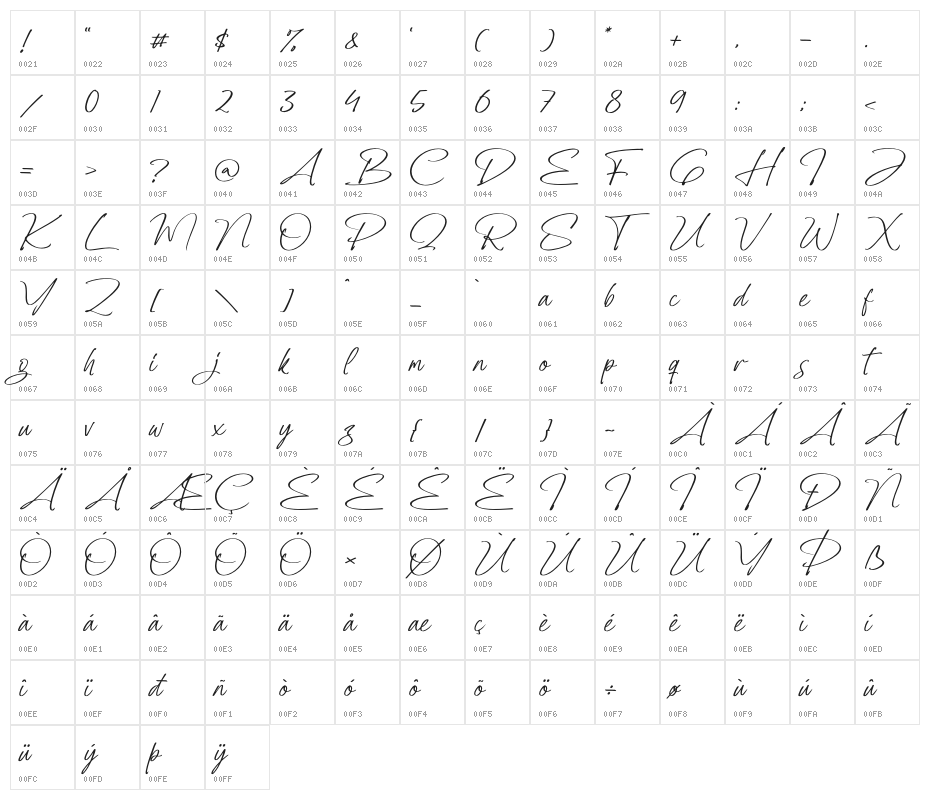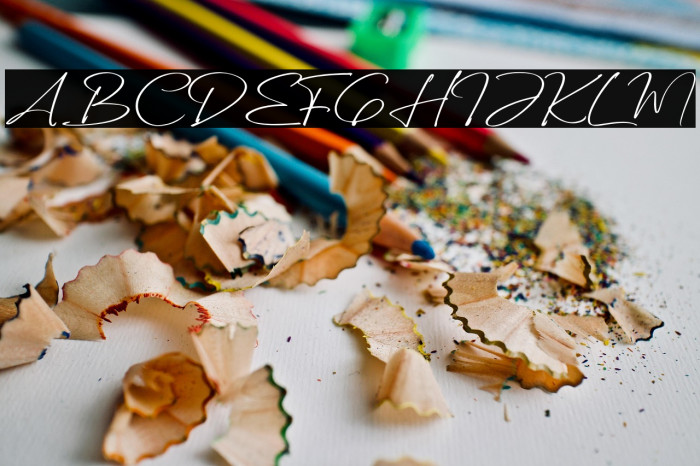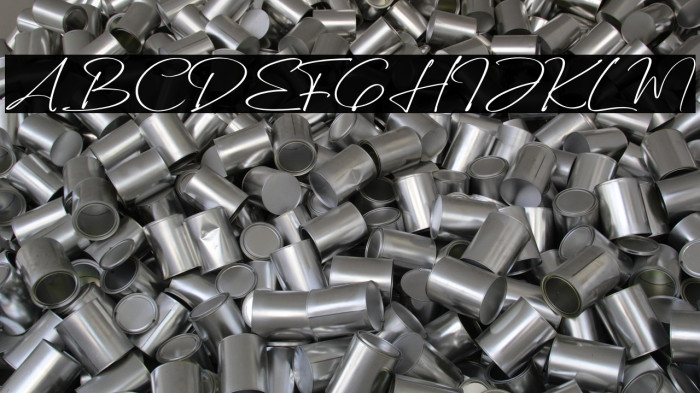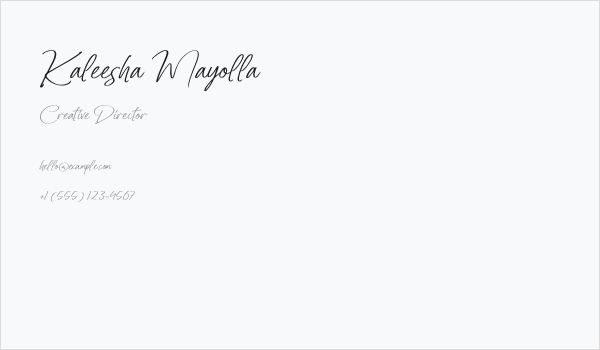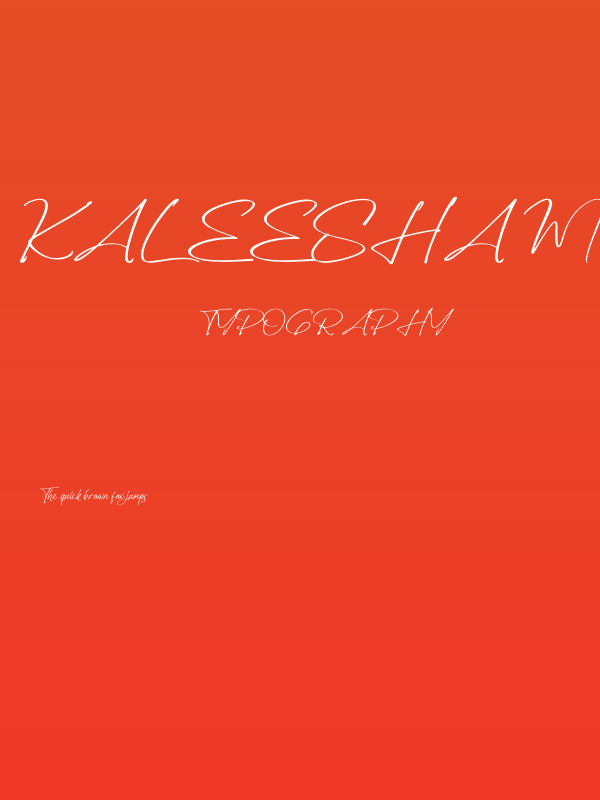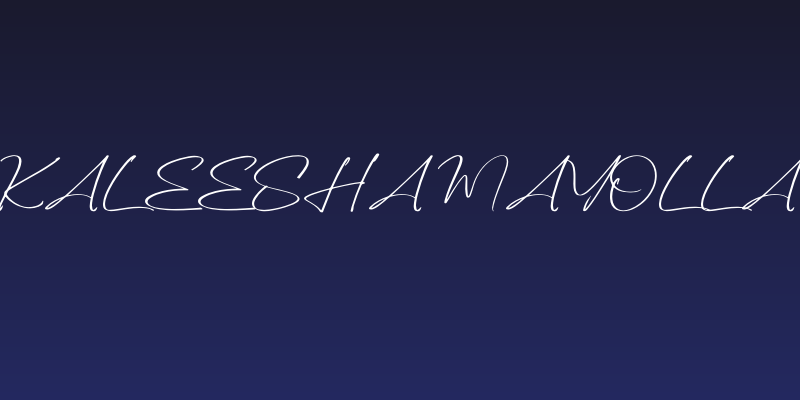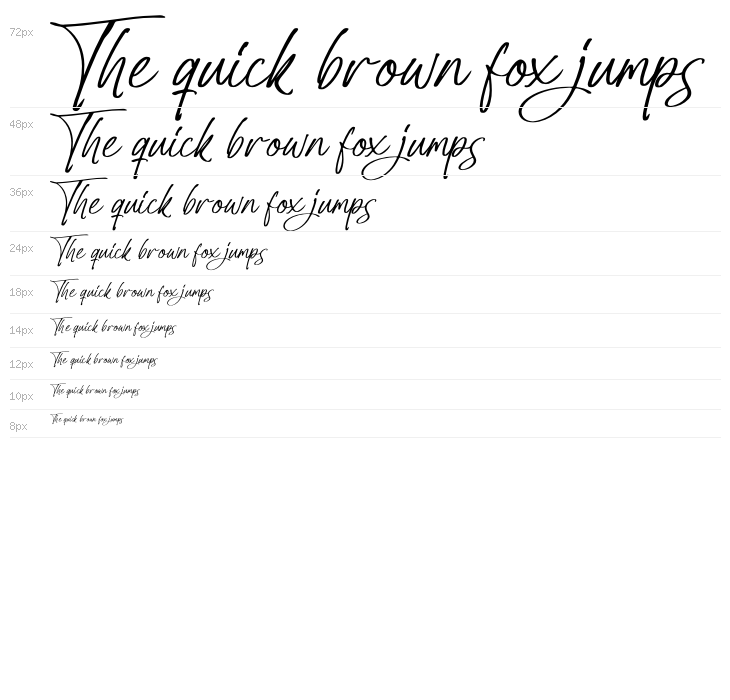
Kaleesha Mayolla Font
Kaleesha Mayolla Description
A flowing, elegant script font with a handwritten appearance, featuring connected letterforms, high contrast between thick and thin strokes, and expressive, sweeping ascenders and descenders.
| Overall Style | Decorative, Elegant, Handwritten |
| Use Case | Logos, Headlines, Invitations, Decorative text |
| Proposed Projects | Wedding invitations, personal branding, greeting cards, elegant packaging, quotes. |